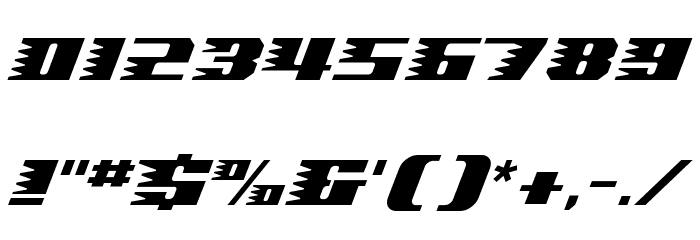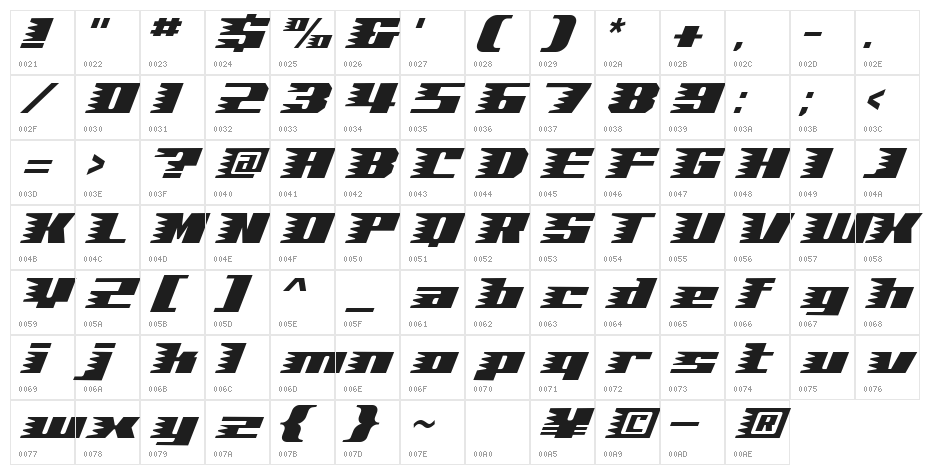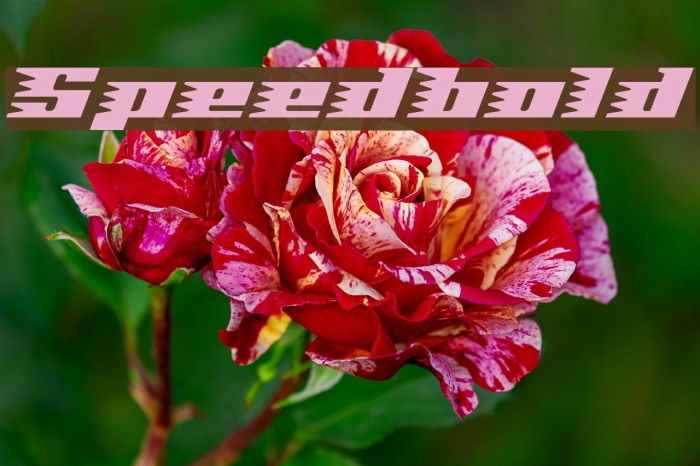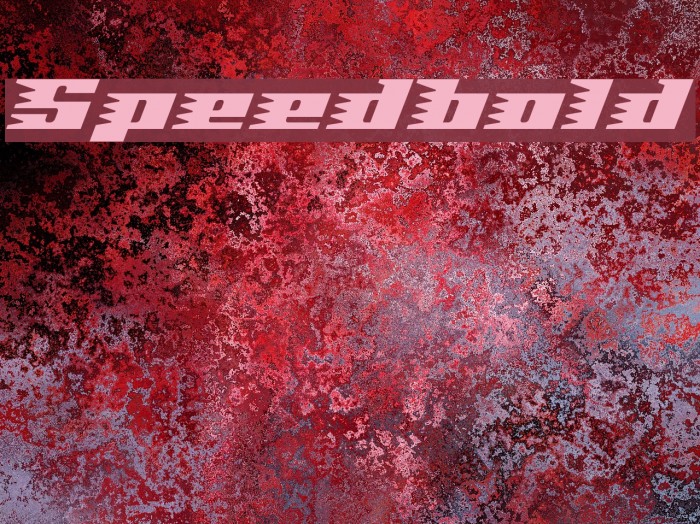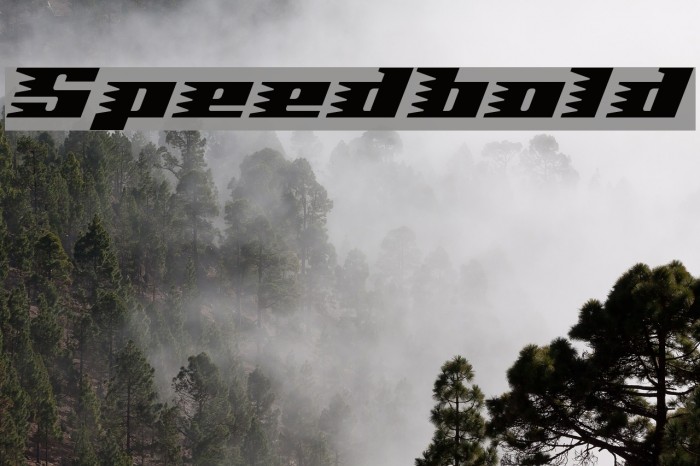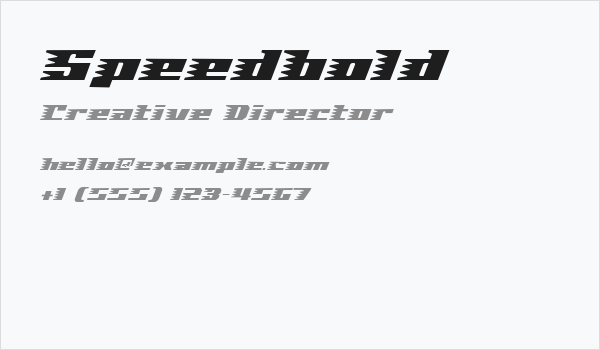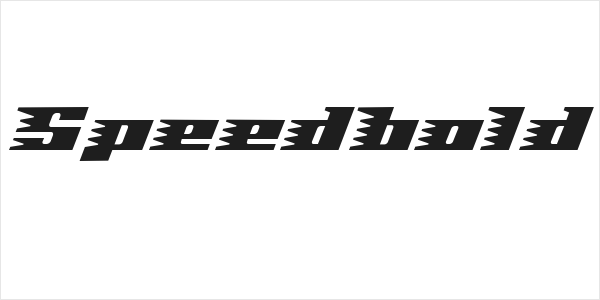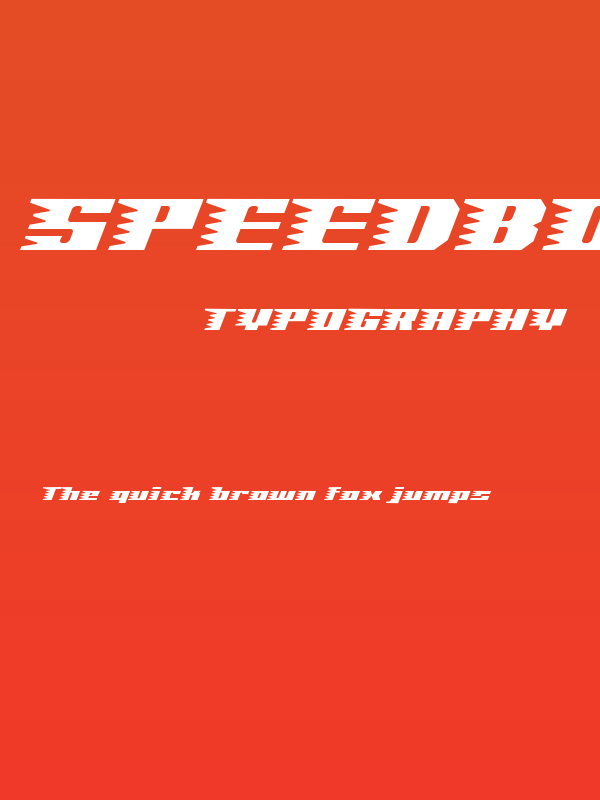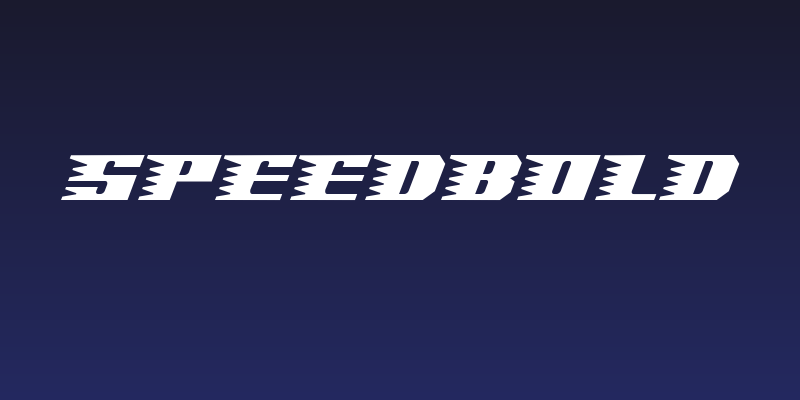
Speedbold Font
Speedbold Description
This font features a bold and dynamic design with sharp, angular edges and a distinct slant that conveys a sense of speed and motion. The uppercase and lowercase letters are consistent in their aggressive styling, with each character exhibiting a unique, jagged edge that adds to the overall energetic feel. The numerals and special characters maintain this theme, ensuring a cohesive look across all glyphs. The font's thick strokes and high contrast make it highly legible, even at smaller sizes, while the unique design elements ensure it stands out in any application.
| Proposed Projects | Ideal for sports branding, action-themed posters, video game titles, and dynamic advertising campaigns. |